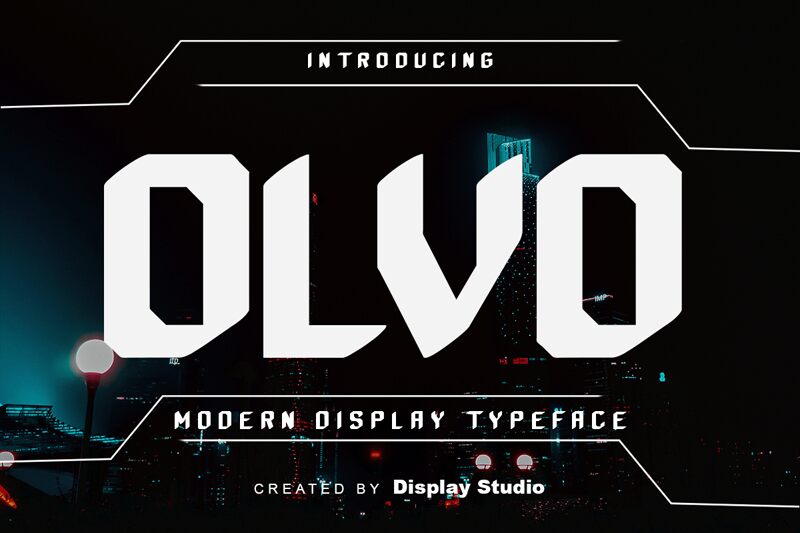
OLVO, the bold and modern font designed by Display Studio, brings a sleek and futuristic aesthetic to any project. With its techno touch, this display font is perfect for tech startups or gaming companies seeking an edgy look. OLVO's clean lines and bold weight make it suitable for headlines, logos, or even packaging design. Its versatility extends to digital projects such as web design or app interfaces. OLVO is sure to catch the eye of any viewer and leave a lasting impression.
OLVO